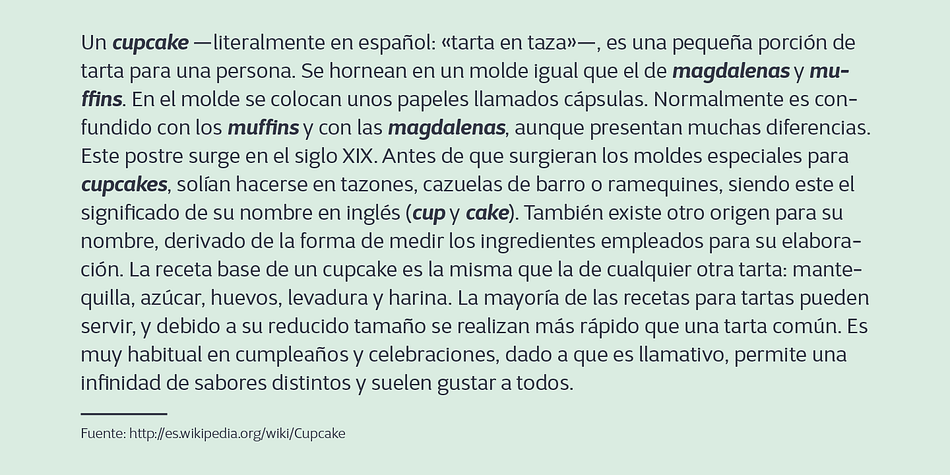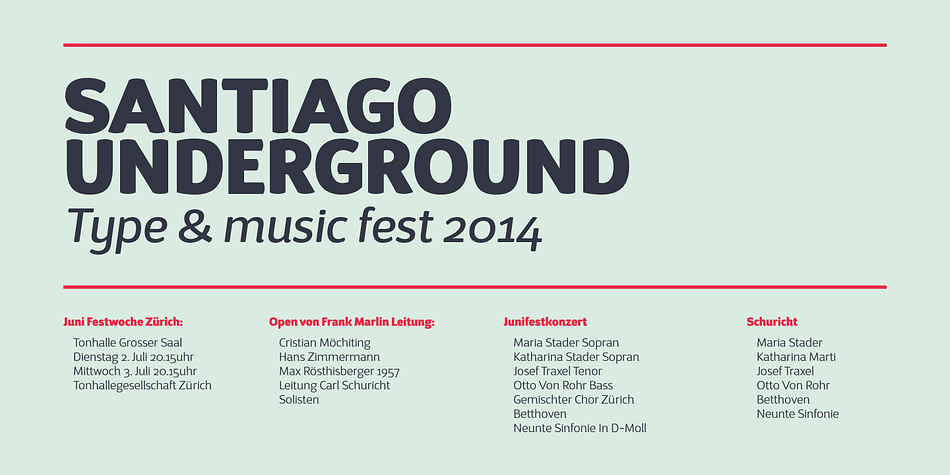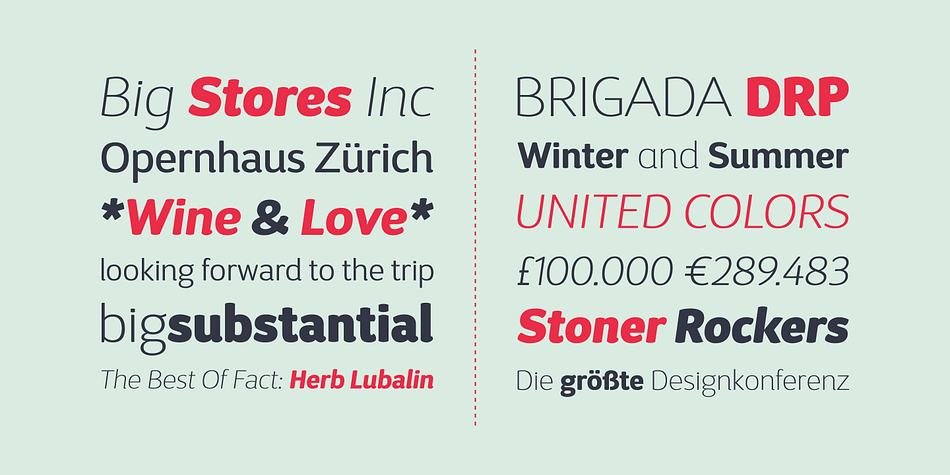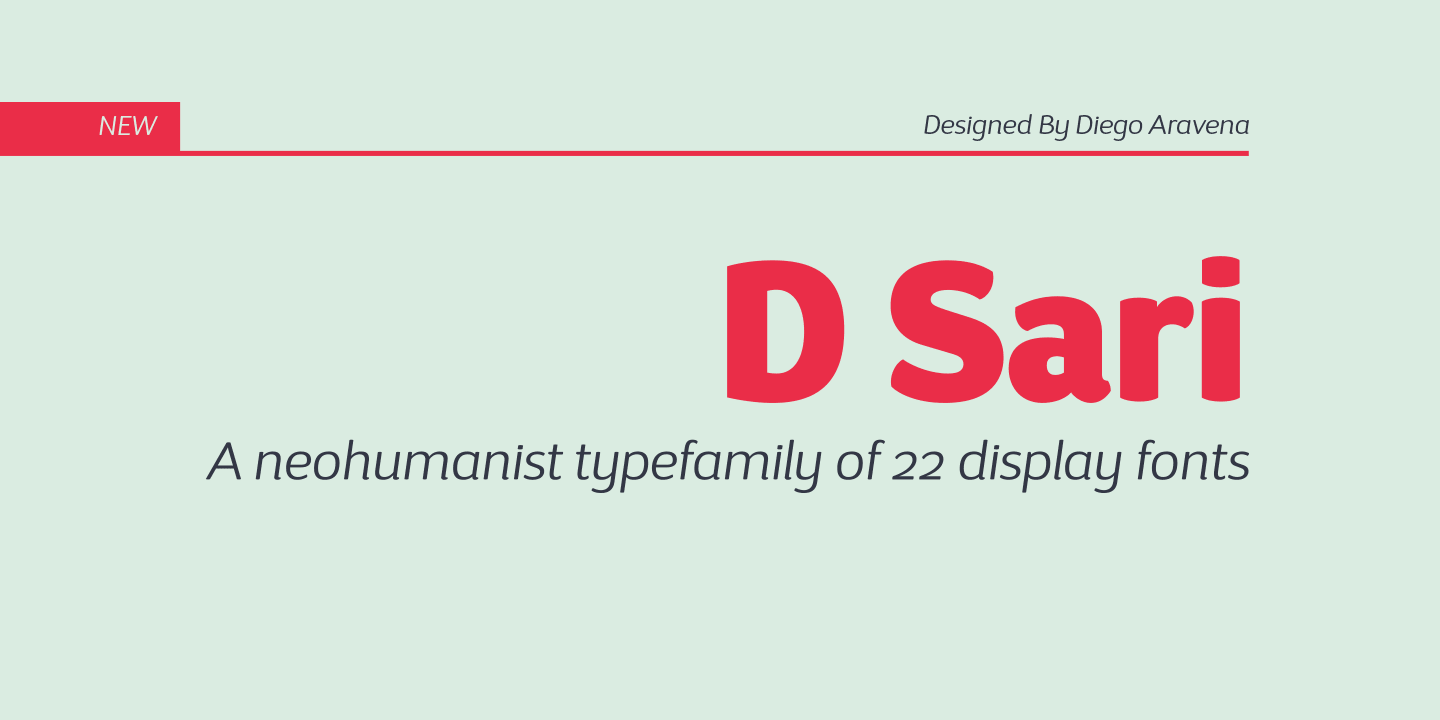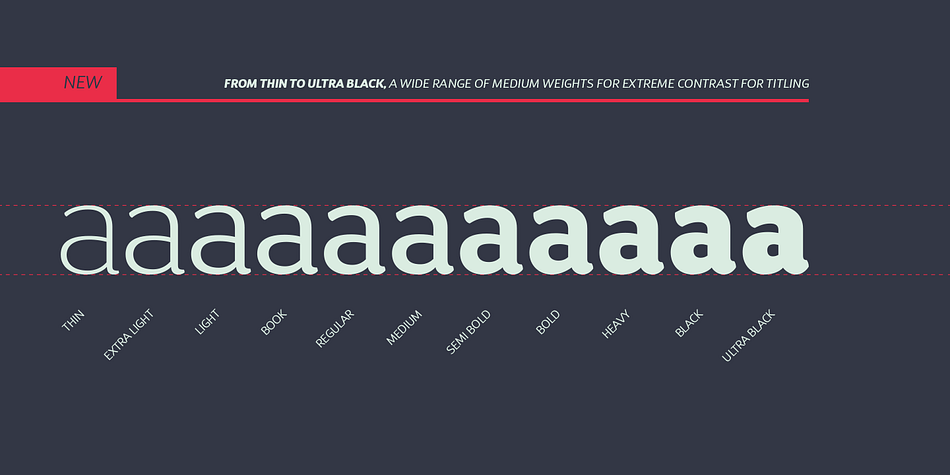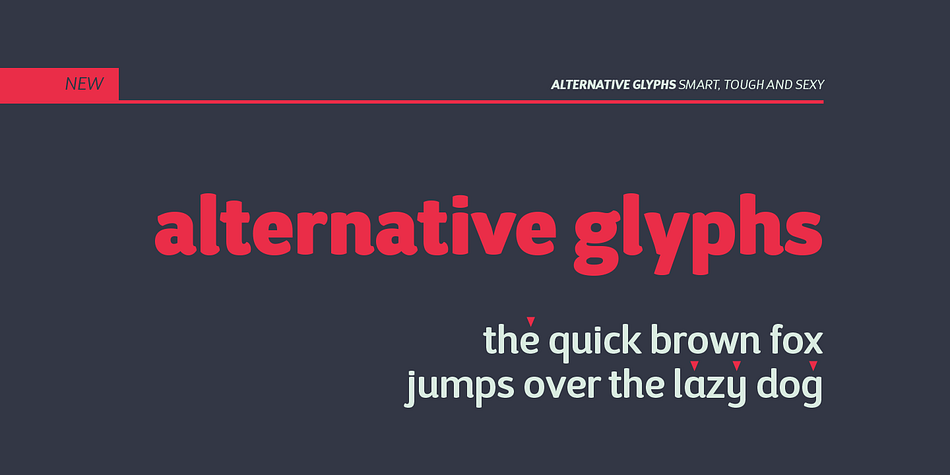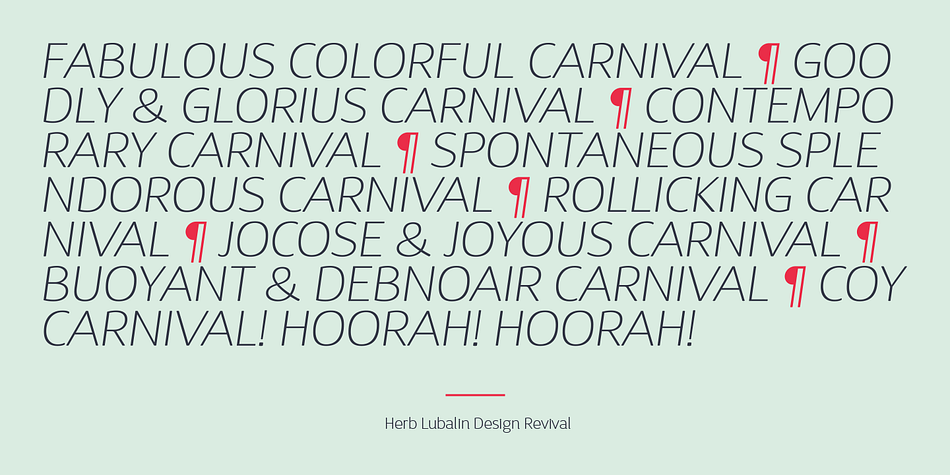
D Sari is a sans serif font family. This typeface has twenty-two styles and was published by Latinotype.
It is inspired by the friendliness and cordiality of neo-humanist typefaces with a mix of rounded shapes, some apexed characters, and a little bit of black. Although it follows the ductus, D Sari is also a daring font with less pointed shapes, as is the case with regular neo-humanist typefaces.
D Sari has 22 variants, which make it a very dynamic typeface. Well-suited for highlighting lettering, magazines, motion graphics, advertising, logotypes, signs, etc.